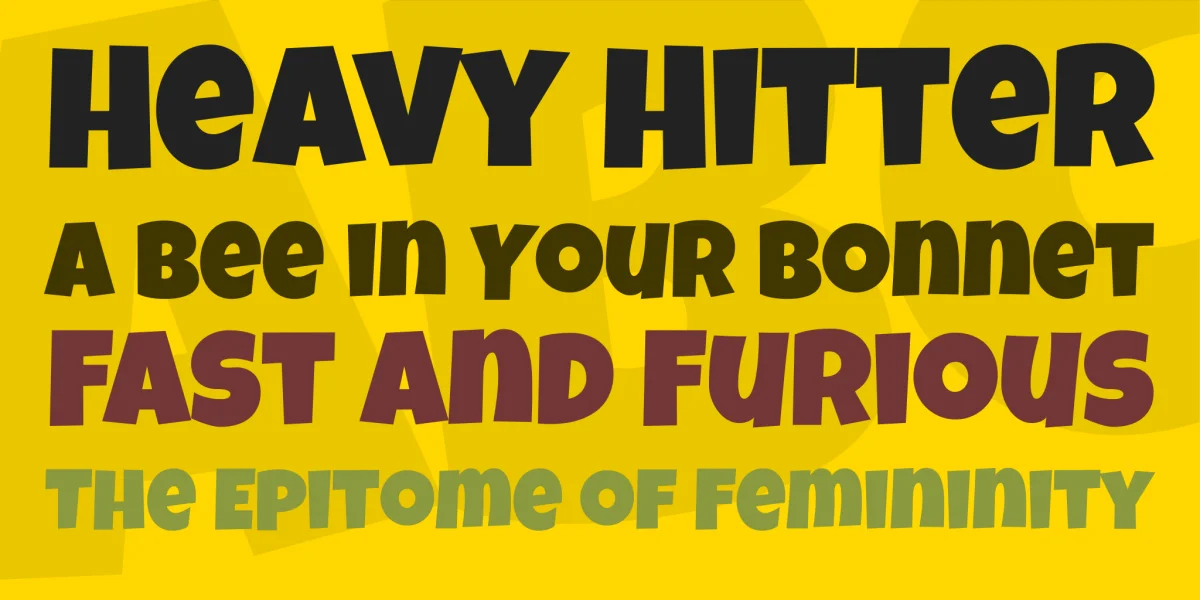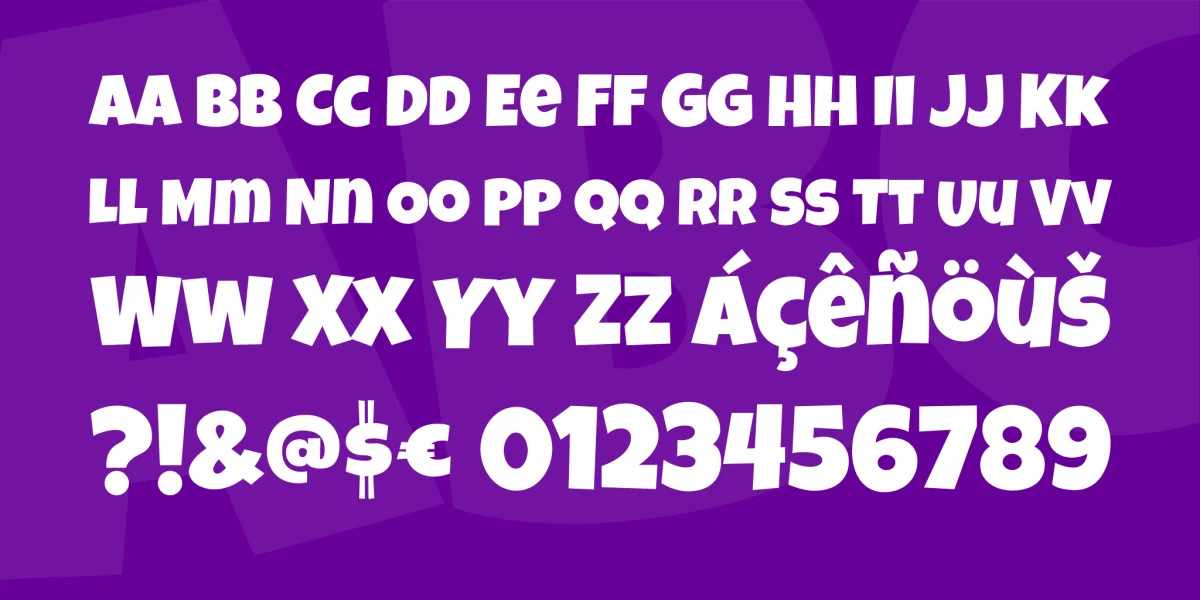
Luckiest Guy is a friendly heavyweight sans-serif font inspired by custom hand lettered 1950's advertisements. Large and in charge, this offbeat, lovably legible font lends itself to all sorts of uses.
Take Luckiest Guy for a spin and let him pack a punch for both your website and your design work.